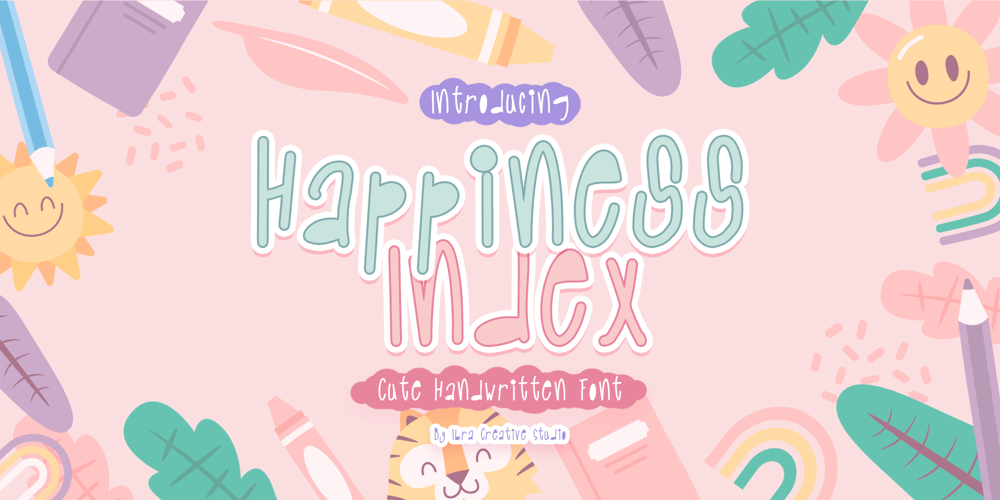
Happiness Index
Happiness Index font
Happiness Index Font Family was designed by Roisatul Azizah and published by IbraCreative. Happiness Index contains 1 styles and family package options. Happiness Index is a cute, cheerful and unique handwritten font. Thin and friendly, this font will be an ideal choice for a wide range of fashion, cosmetic, casual, comic, kids book, and any informal designs. Use Happines Index for your creations and explore its endless possibilities.